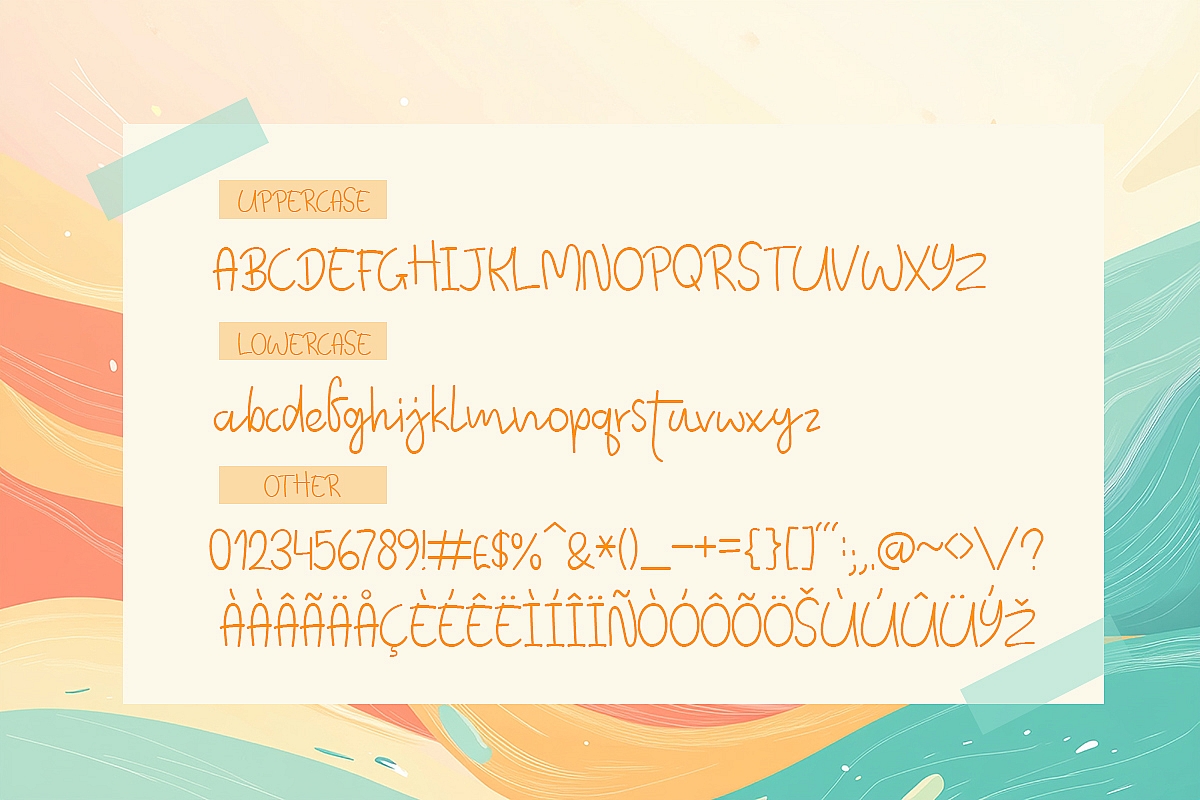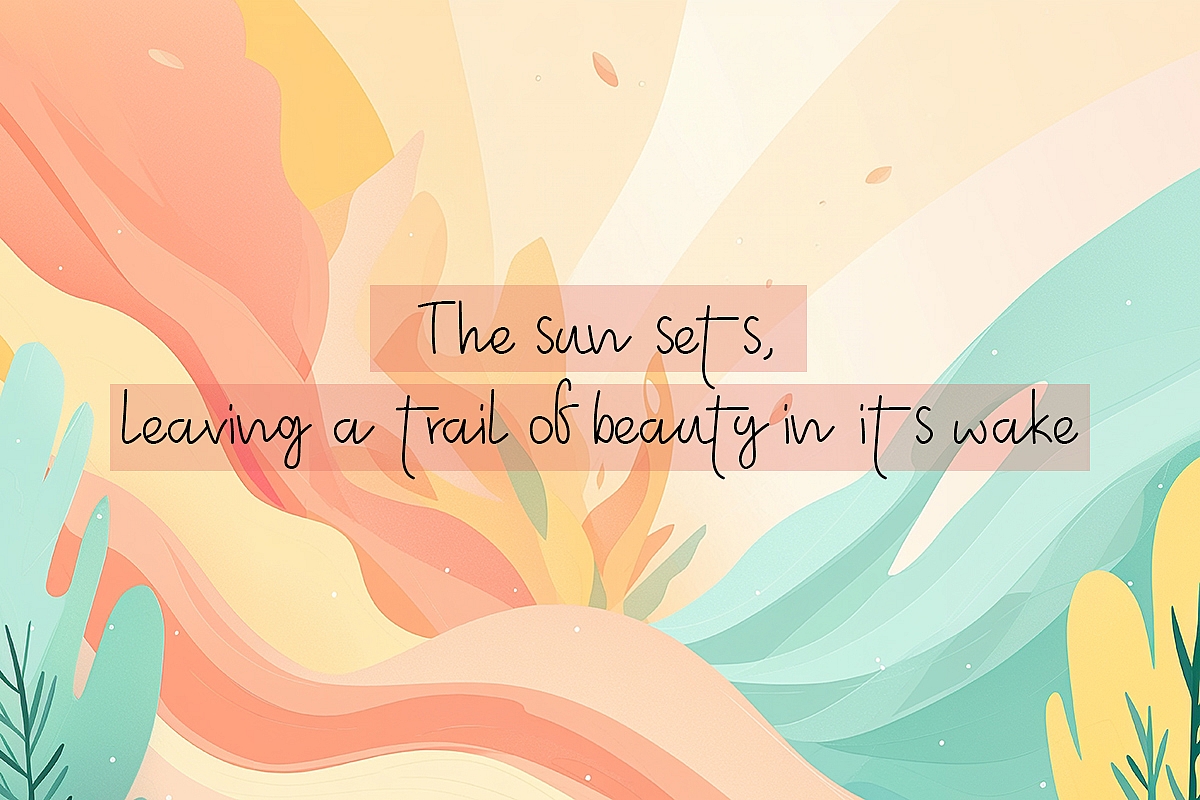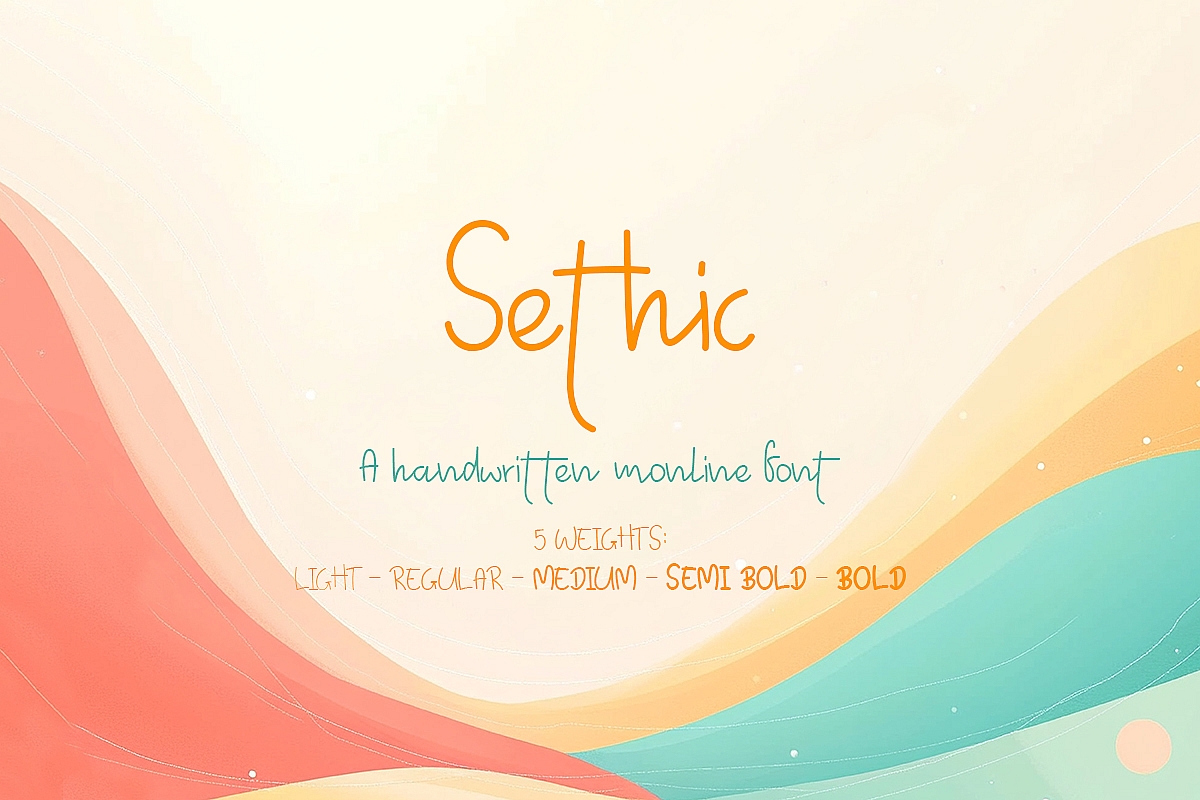
Sethic
Sethic is a stylish handwritten font that exudes elegance and character. With smooth, flowing lines and a slightly irregular texture, it captures the essence of natural handwriting while maintaining a sense of sophistication.
The letters are delicately crafted with subtle flourishes, making it perfect for creative projects that require a personal, yet refined touch.
Key Features:
• Elegant, flowing script with a natural handwritten feel
• Subtle flourishes and irregularities that add personality
• Smooth curves and balanced spacing for readability
• Versatile style suitable for both casual and formal designs
Ideal For:
• Party invitations and event stationery
• Branding and logo design for boutique businesses
• Social media graphics and quotes
• Artistic projects like posters, book covers, and greeting cards
Whether used in invitations, branding, or artistic designs, Sethic adds a touch of warmth and individuality, making any text stand out with its unique charm.